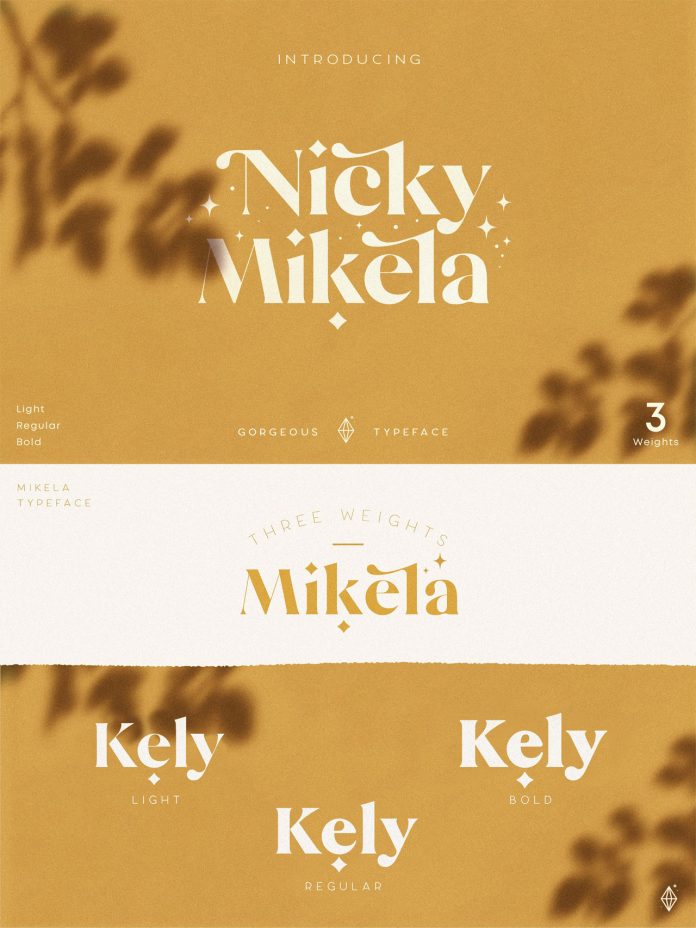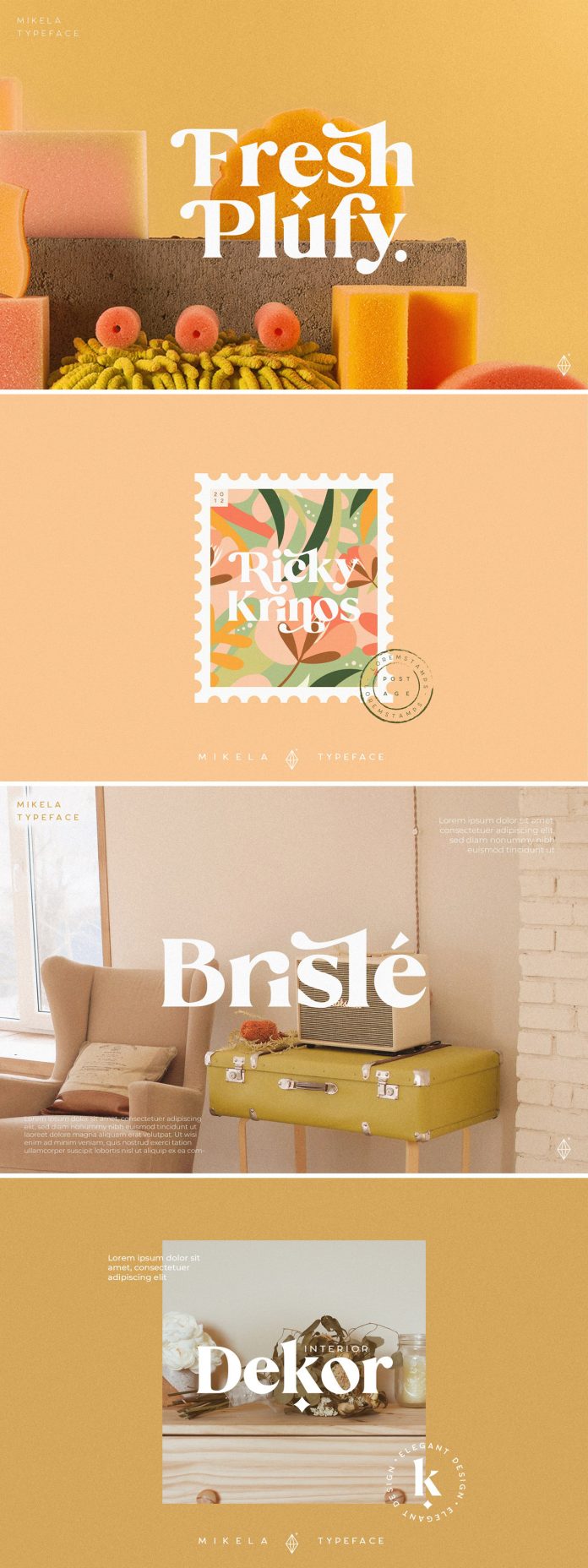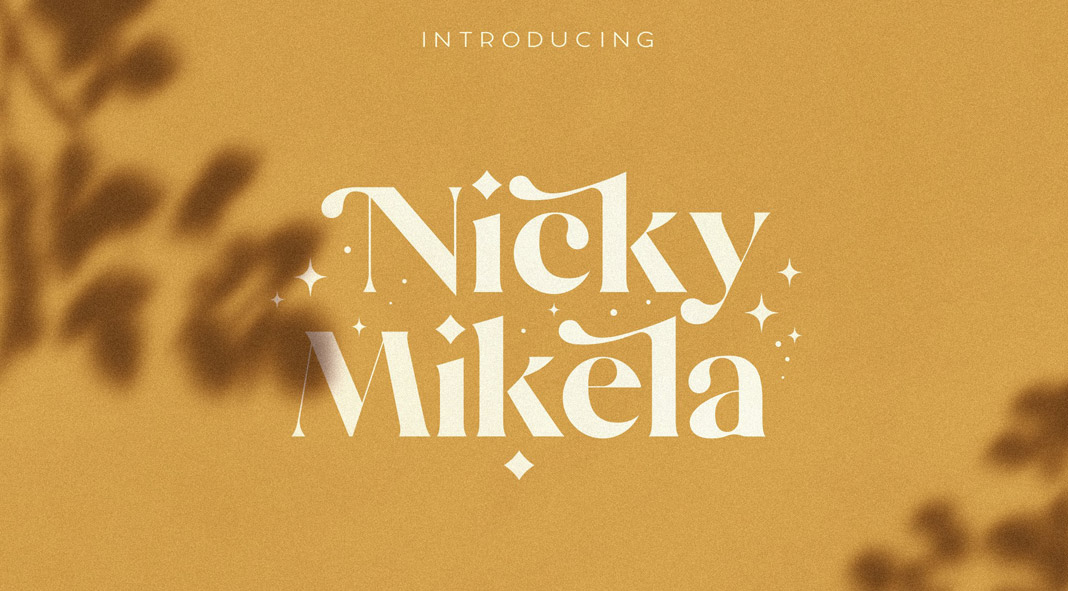
Mikela — three gorgeous typefaces newly designed and published by NEWFLIX.Bro.
Mikela (aka Nicky Mikela) is a bold and elegant vintage font with beautiful ligatures as well as lots of special alternative glyphs and lovely ornaments. The extensive character set supports multiple languages. Consisting of three weights (light, regular, and bold), the versatile font works great in both large and small sizes. It is well suited for a great variety of typographic applications including branding projects, logo design, clothing, product packaging, magazine headlines, just to name a few. Feel free to click on the following link or have a look at the images below.